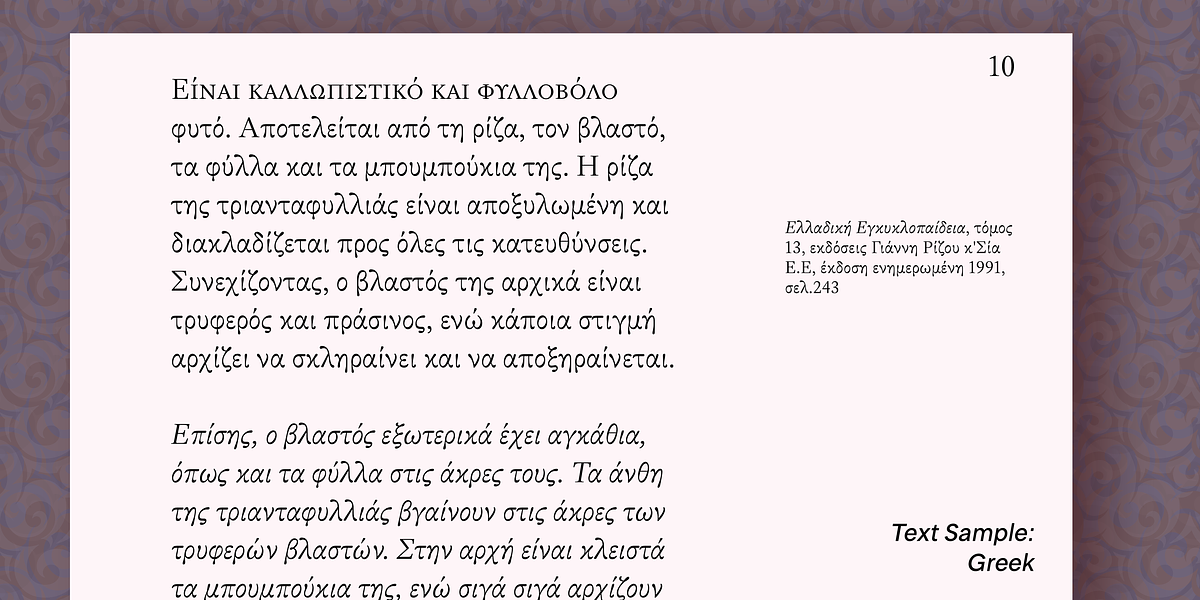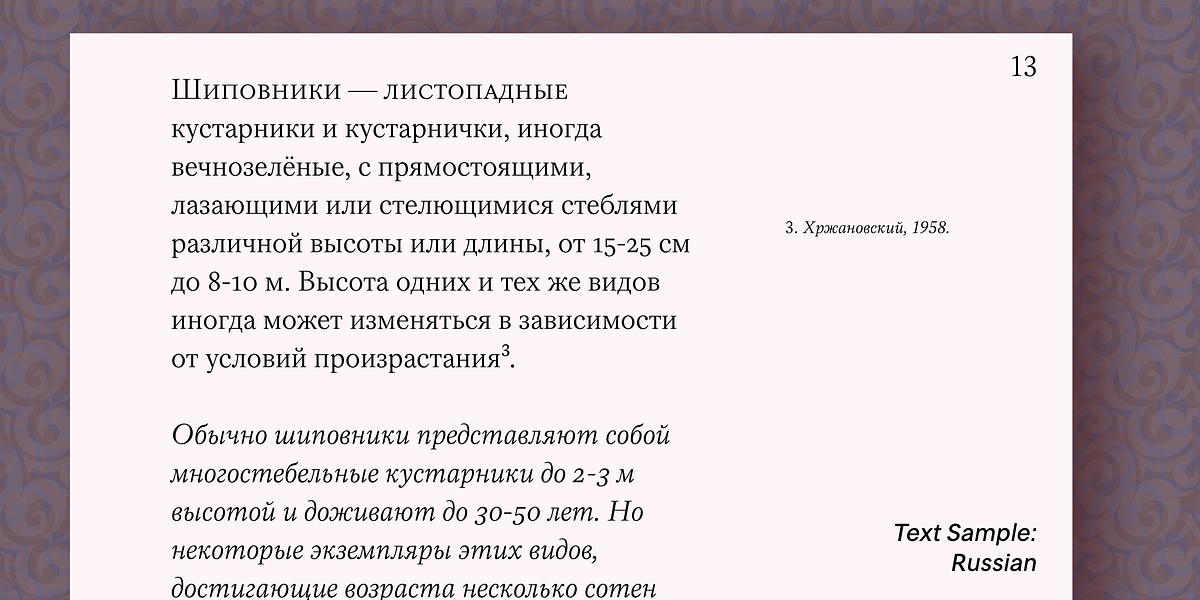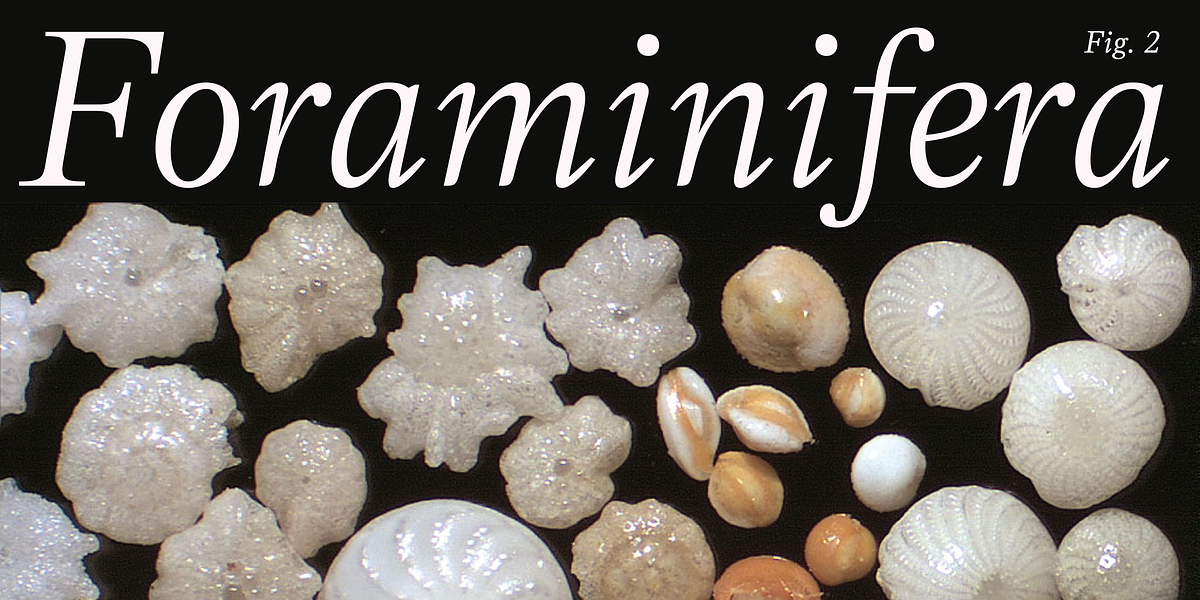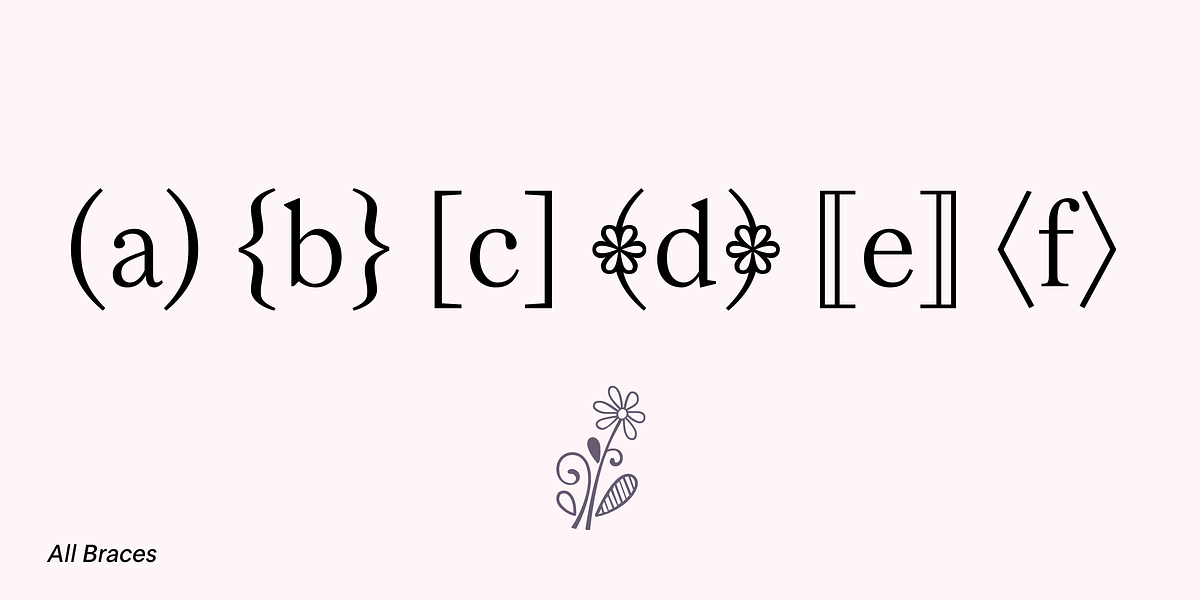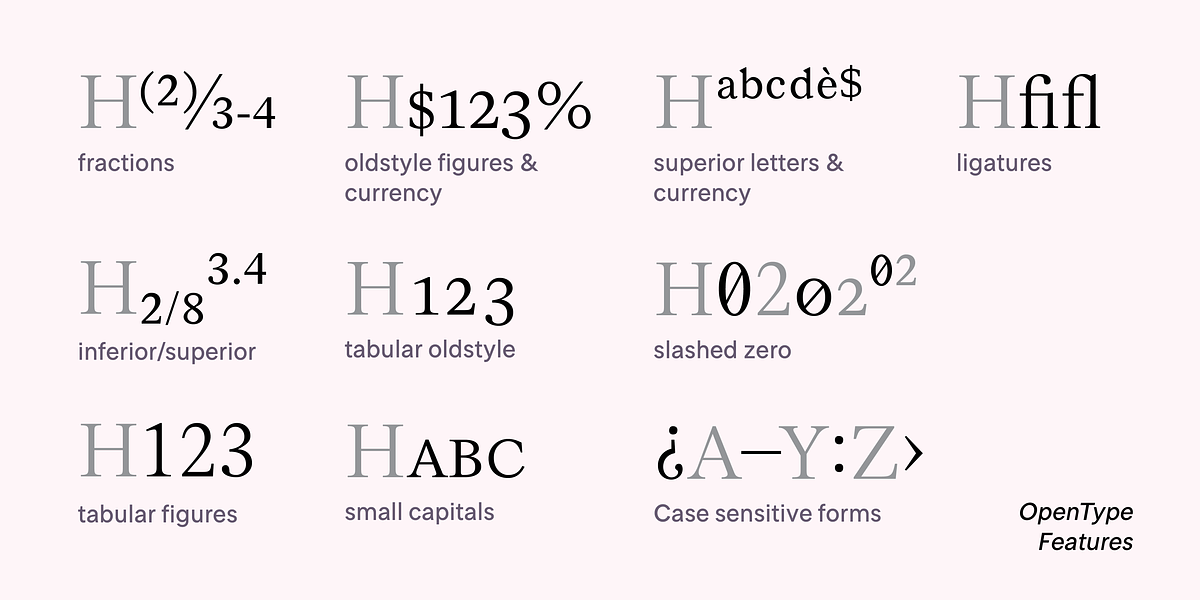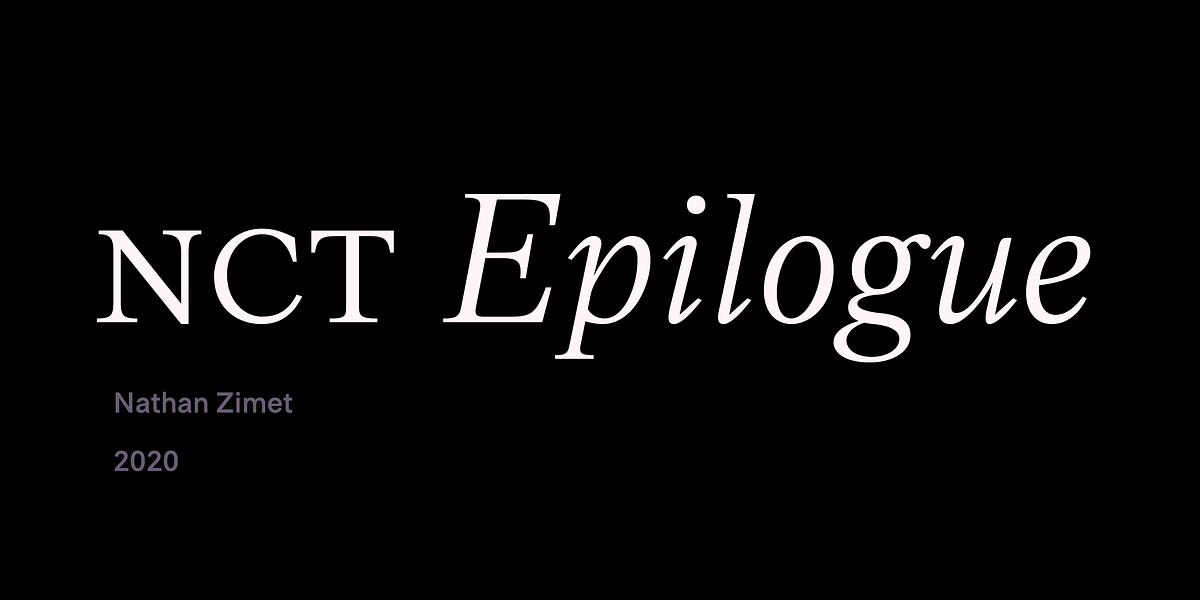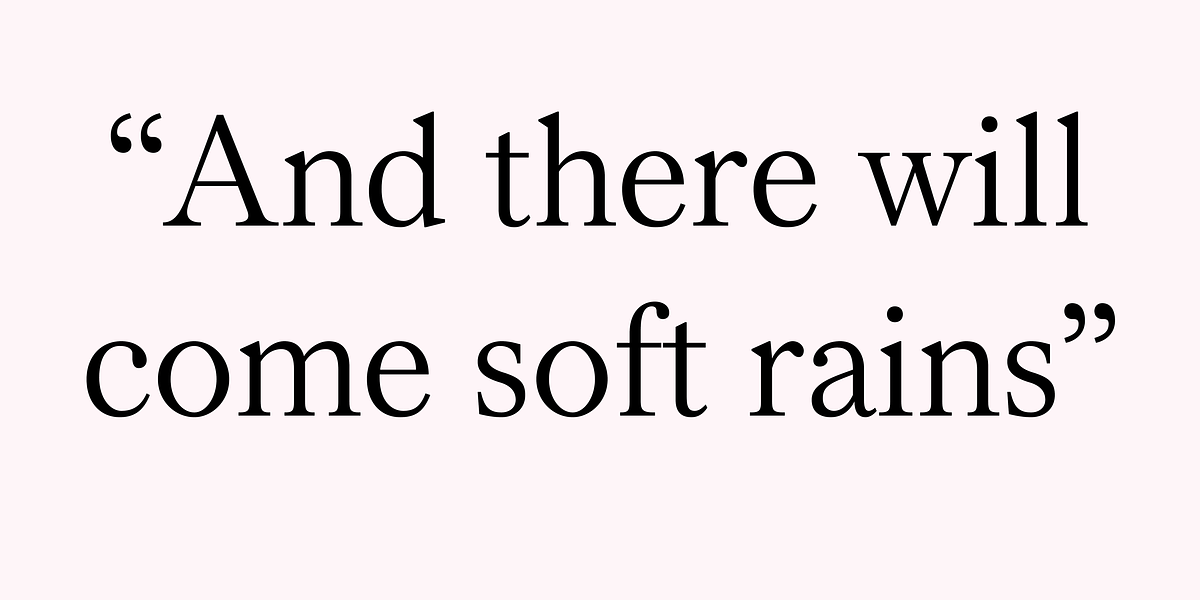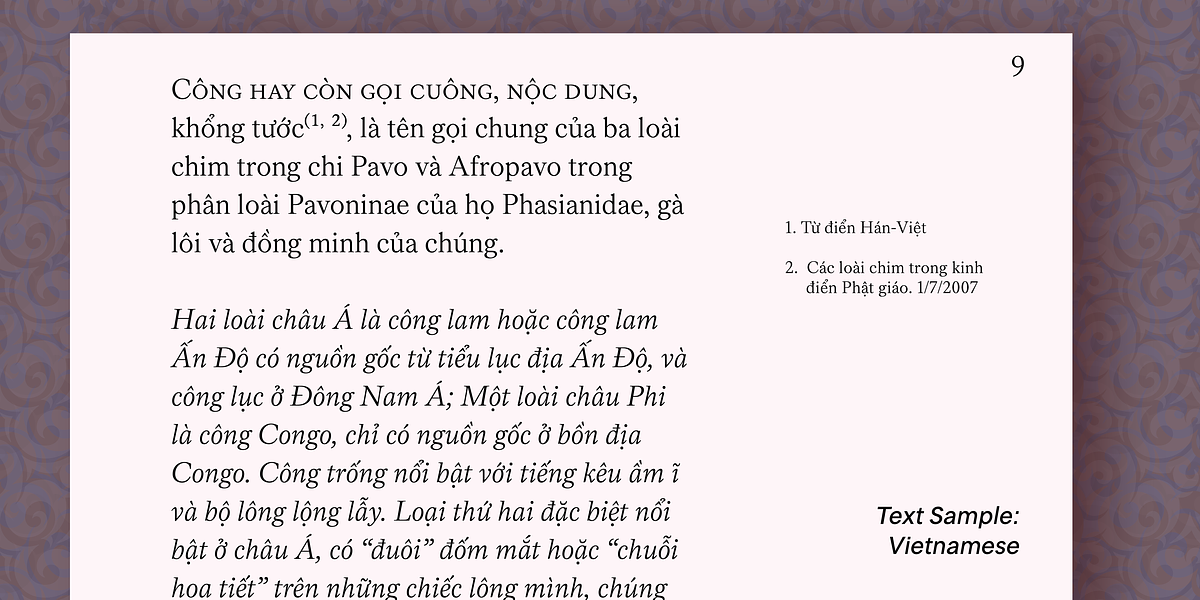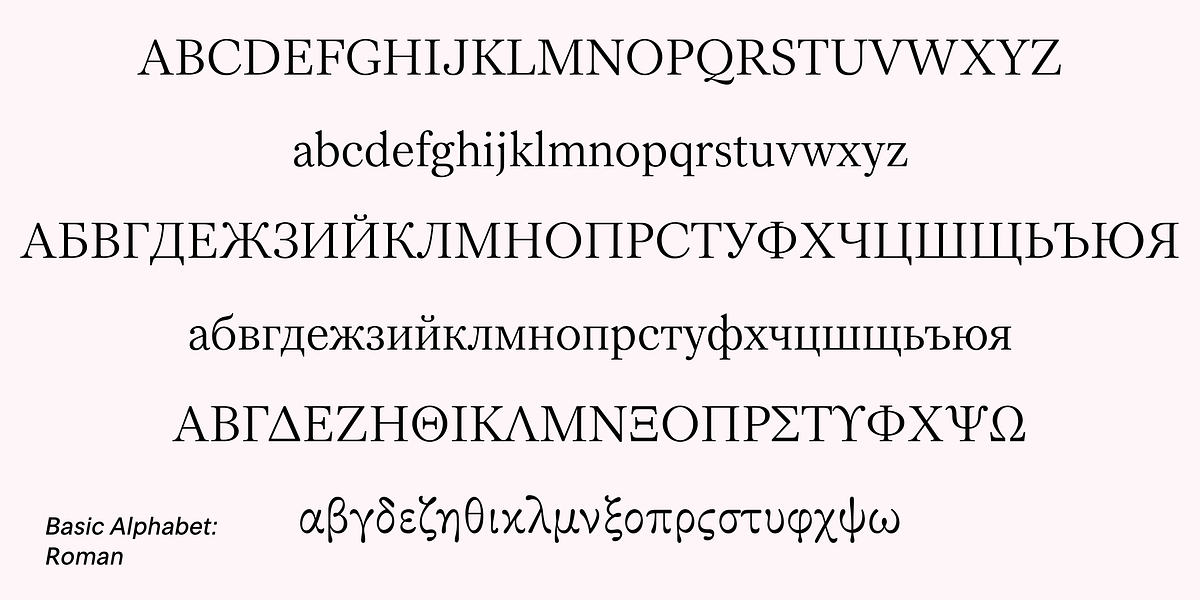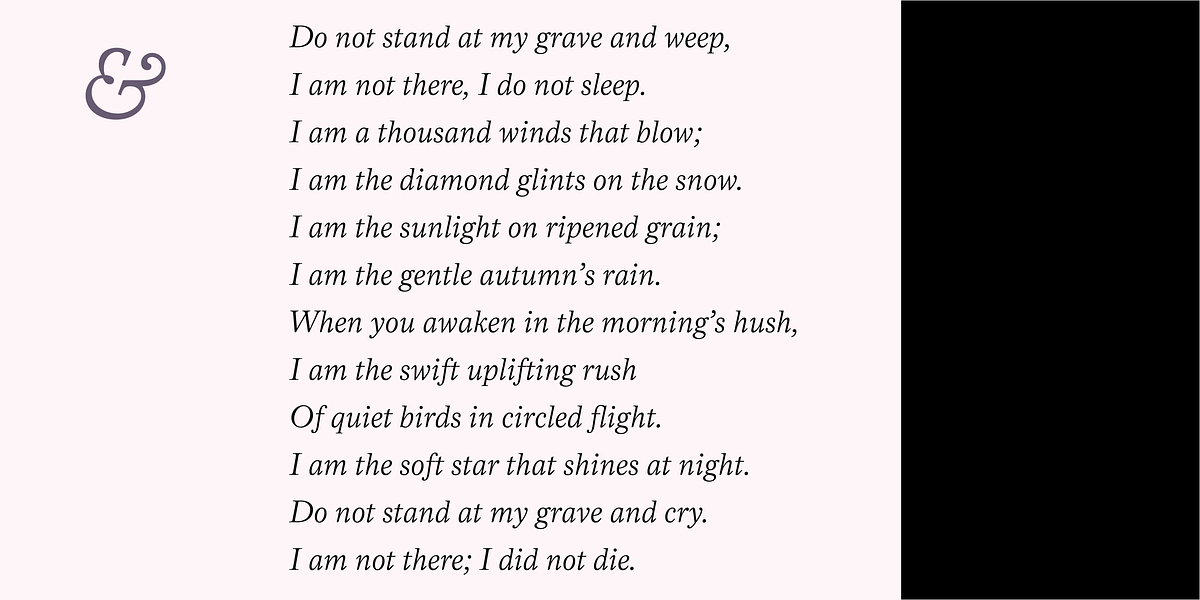
NCT Epilogue
NCT Epilogue is an old style serif font inspired by the aesthetics of old metal types. It features extensive language support including European languages, Vietnamese, Pinyin, Arabic and Hebrew transliteration, modern Greek, Cyrillic, and other extended languages in the Cyrillic script. The font offers a comprehensive set of OpenType features, such as small caps, old-style figures, superscripts, subscripts, numerators, denominators, currencies, tabular numbers, and a slashed zero. It also includes case sensitive punctuation and superscript characters for the basic alphabet. Both the roman and italic styles share the same extensive character set.